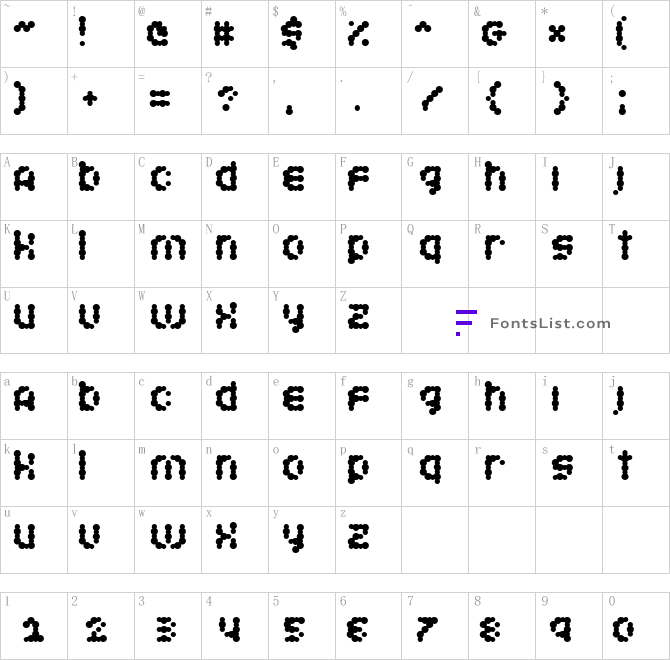
- Font Name:Candybar
Candybar.ttf is a very beautiful artistic font, Candybar.ttf is widely used in the design and printing of various books and pictures,Candybar.ttf has a strong visual impact,Candybar.ttf is a commonly used font in newspapers, magazines and books, and is used in posters, e-commerce Poster design, store design, logo design, font design and other fields.Candybar.